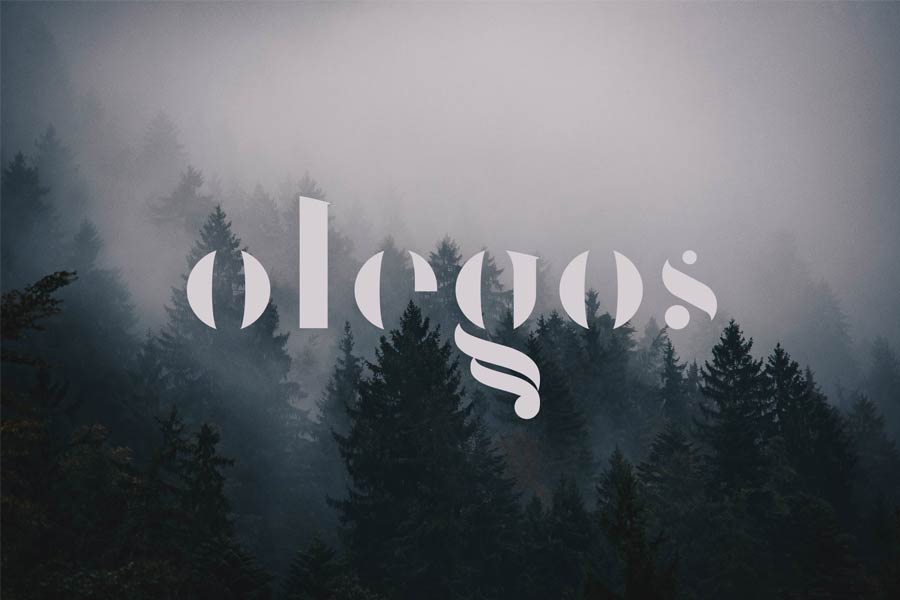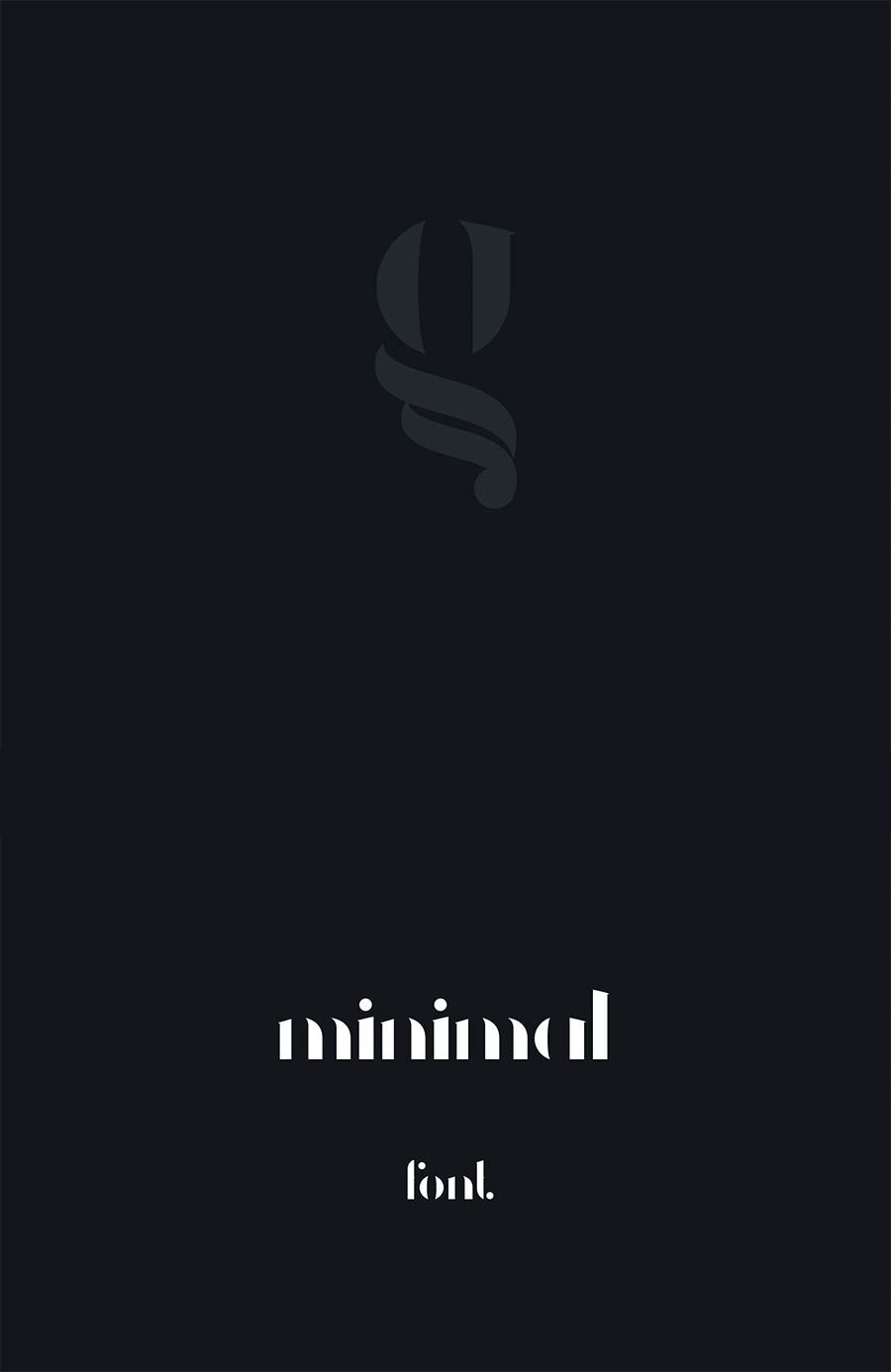
Olegos is a minimalist display style font design that you can download for free. Some strokes and shoulders of the letters are simplified while still maintaining its legibility. This font is great for logo mark designs.